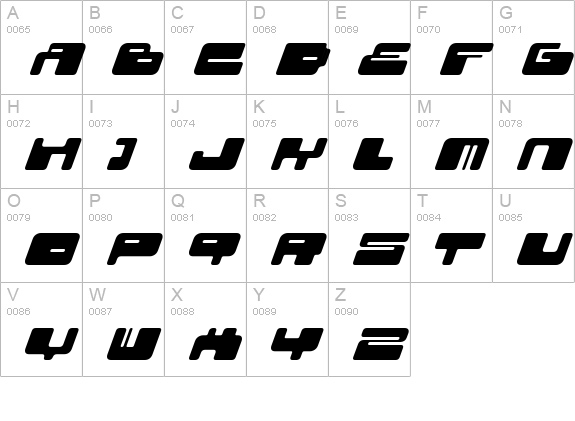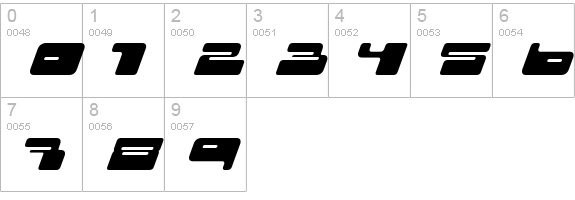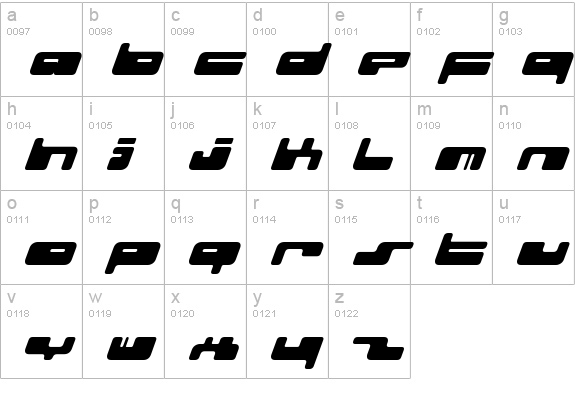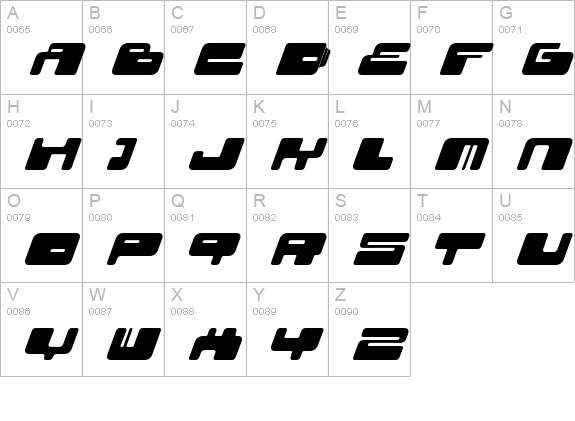
02.10ital fenotype Font Details
02.10ital fenotype font is a unique and stylish typeface that exudes elegance and sophistication. Its sleek and modern design makes it perfect for a wide range of design projects, from branding to editorial work. The font features clean lines and a contemporary look that is sure to make your text stand out. Best of all, 02.10ital fenotype font is completely free to download at FontsMarket.com. This means you can add this stunning font to your collection without any cost, making it a valuable resource for designers and creatives alike. Don't miss out on the opportunity to enhance your projects with this beautiful and versatile typeface. Download 02.10ital fenotype font today and take your designs to the next level!